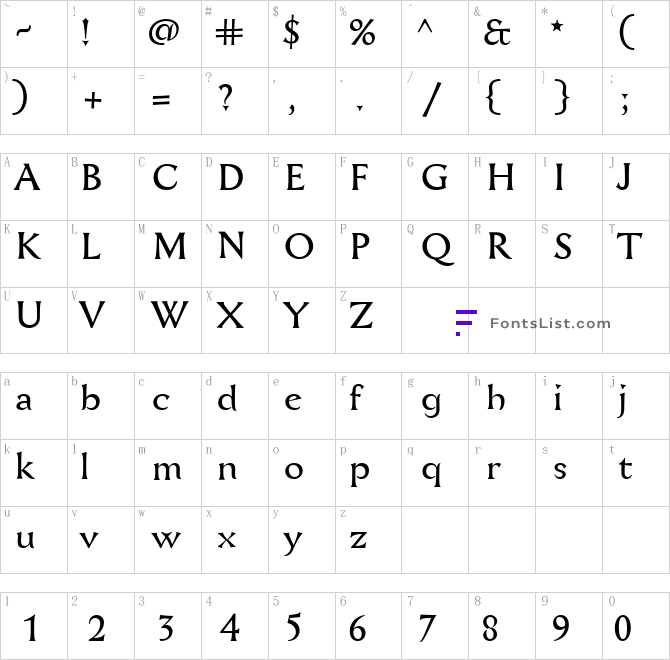
- Font Name:Aichel
Aichel-Regular.ttf is a very beautiful artistic font, Aichel-Regular.ttf is widely used in the design and printing of various books and pictures,Aichel-Regular.ttf has a strong visual impact,Aichel-Regular.ttf is a commonly used font in newspapers, magazines and books, and is used in posters, e-commerce Poster design, store design, logo design, font design and other fields.Aichel-Regular.